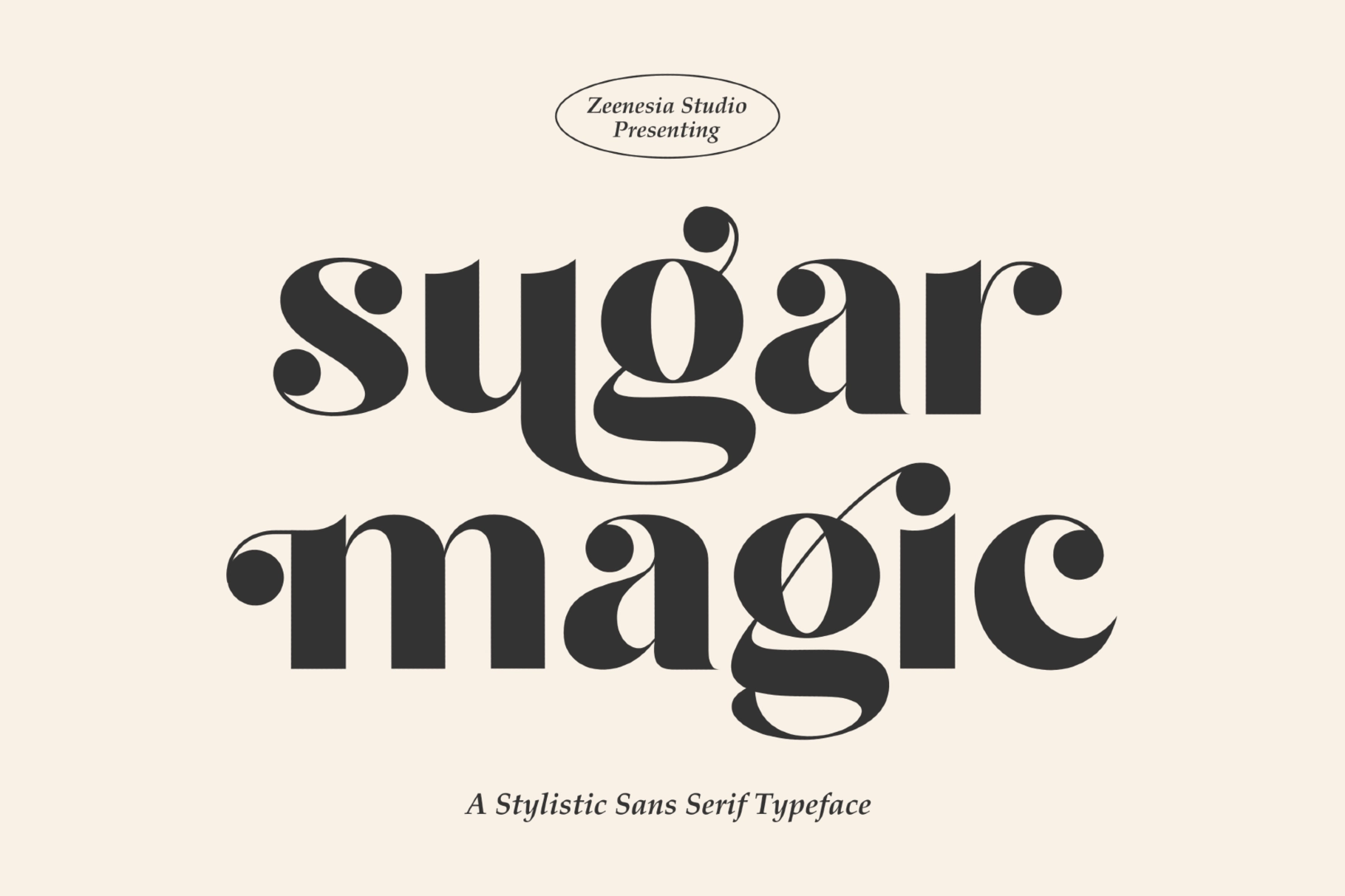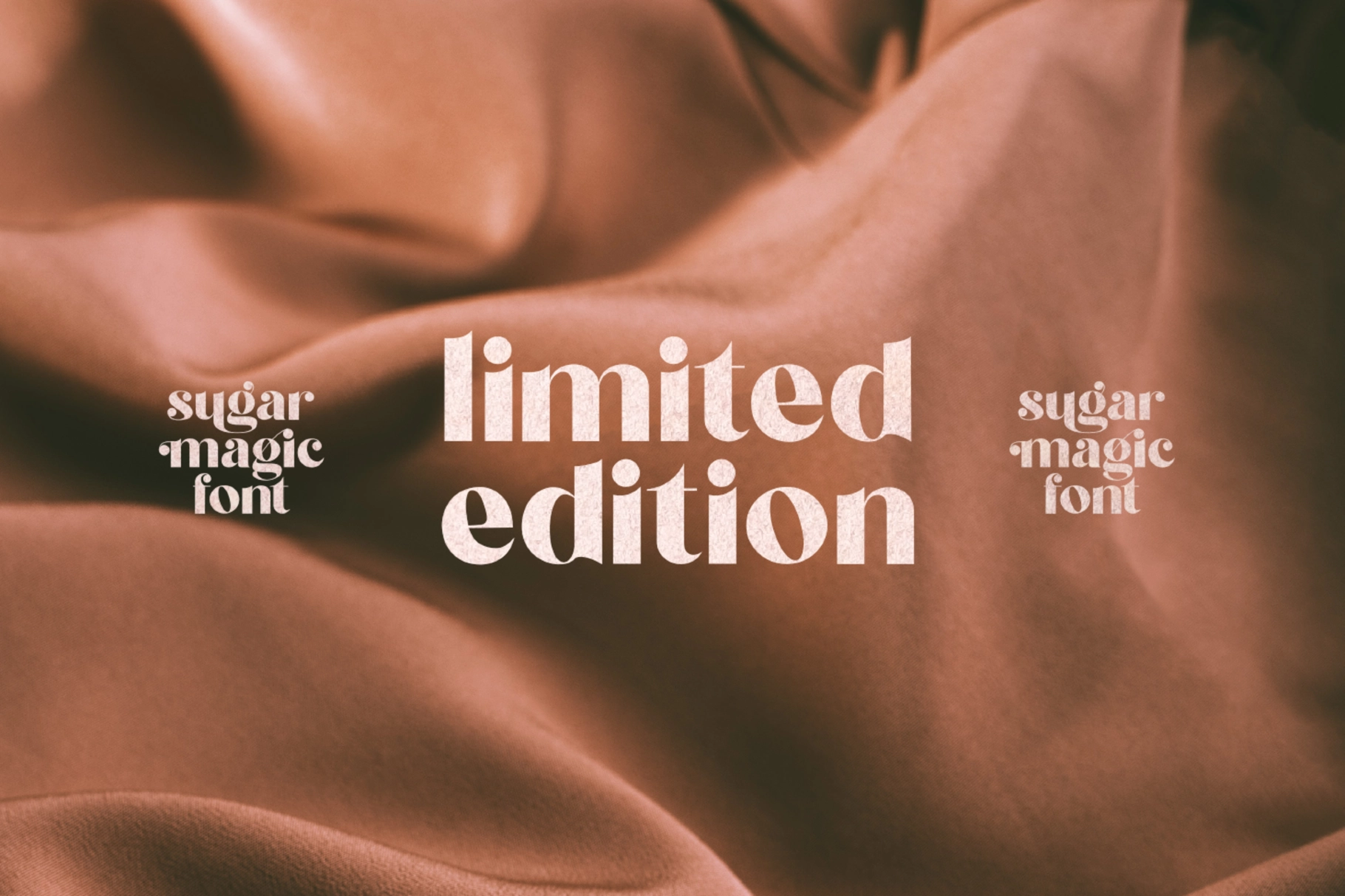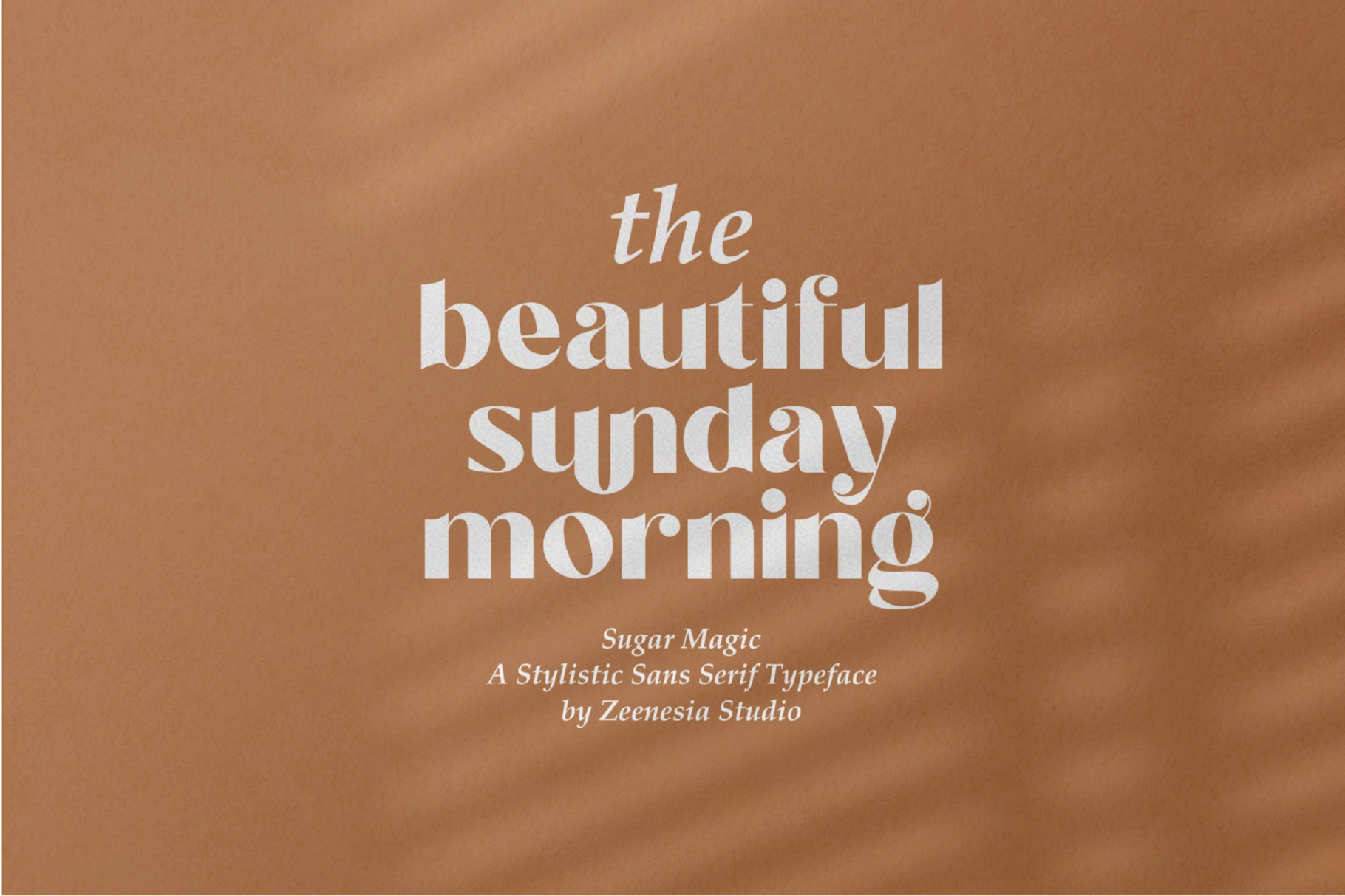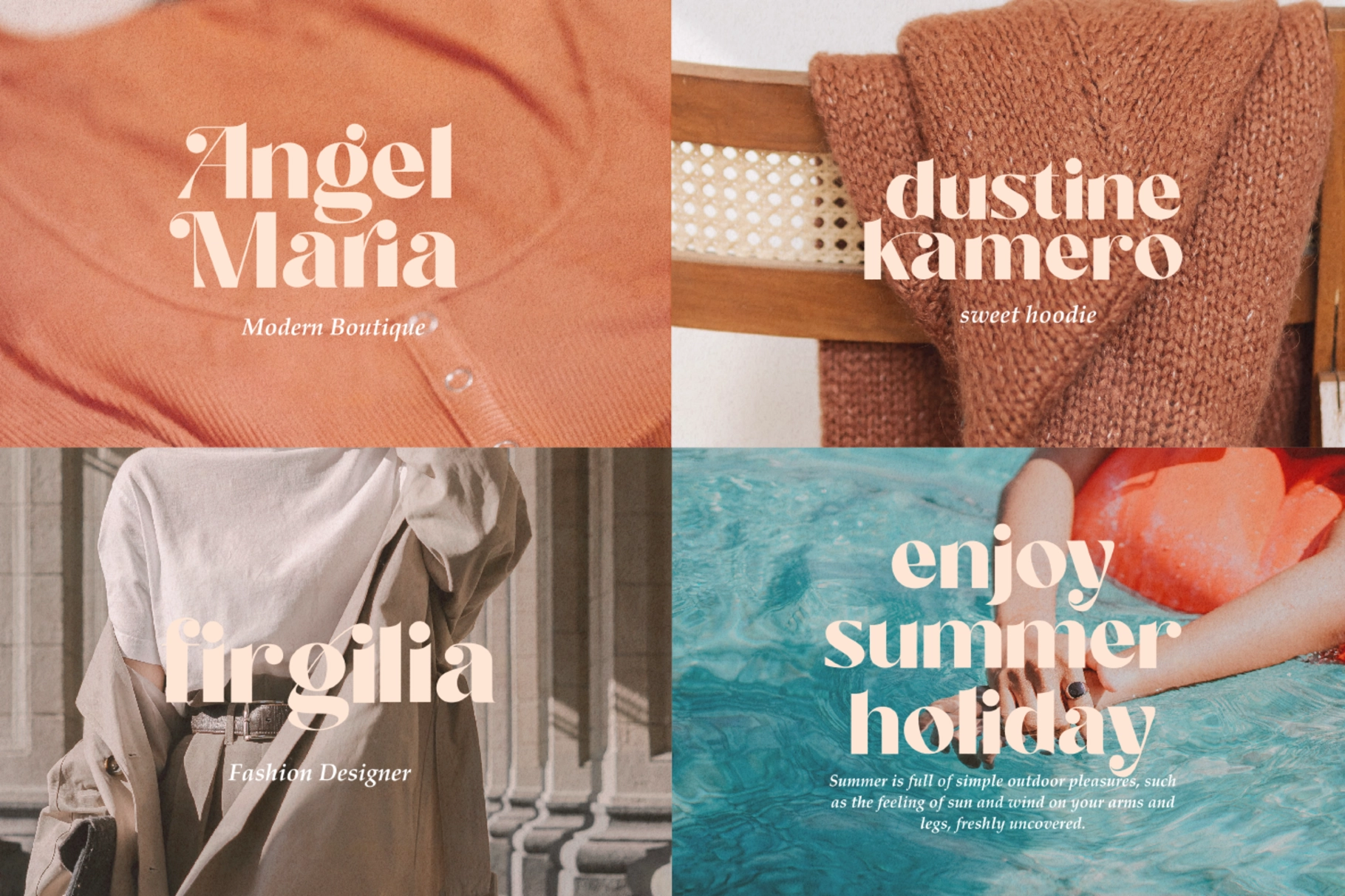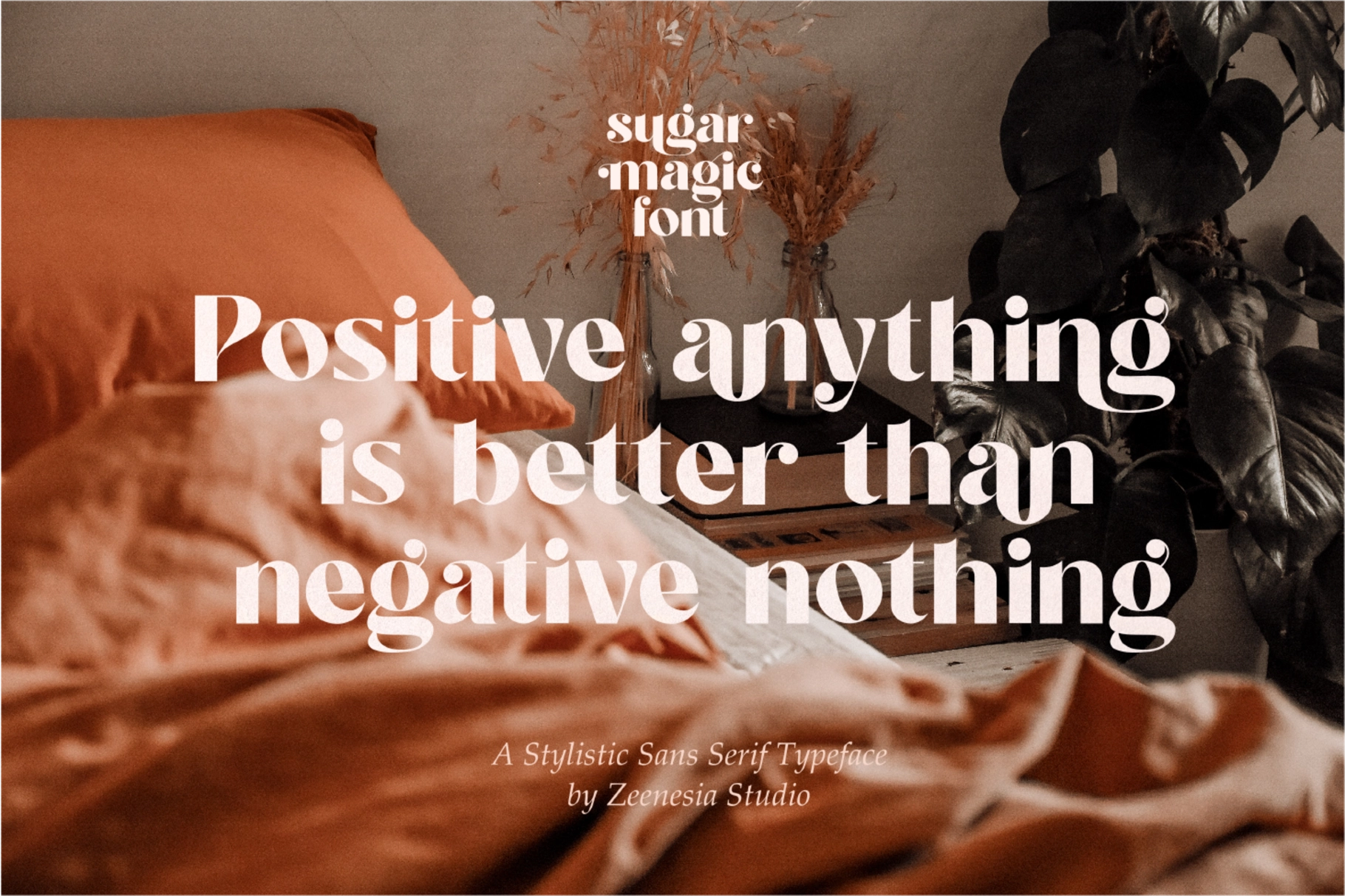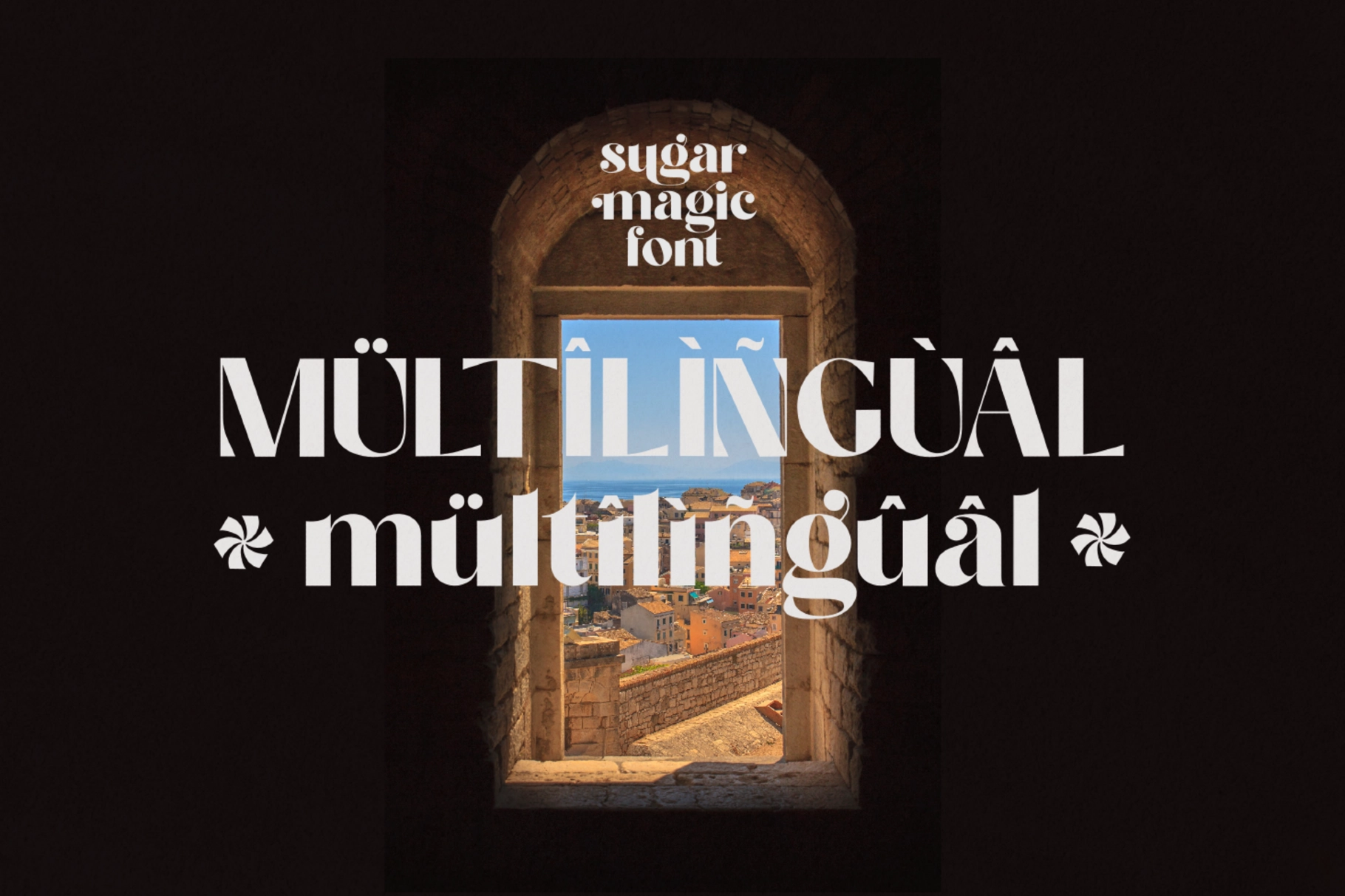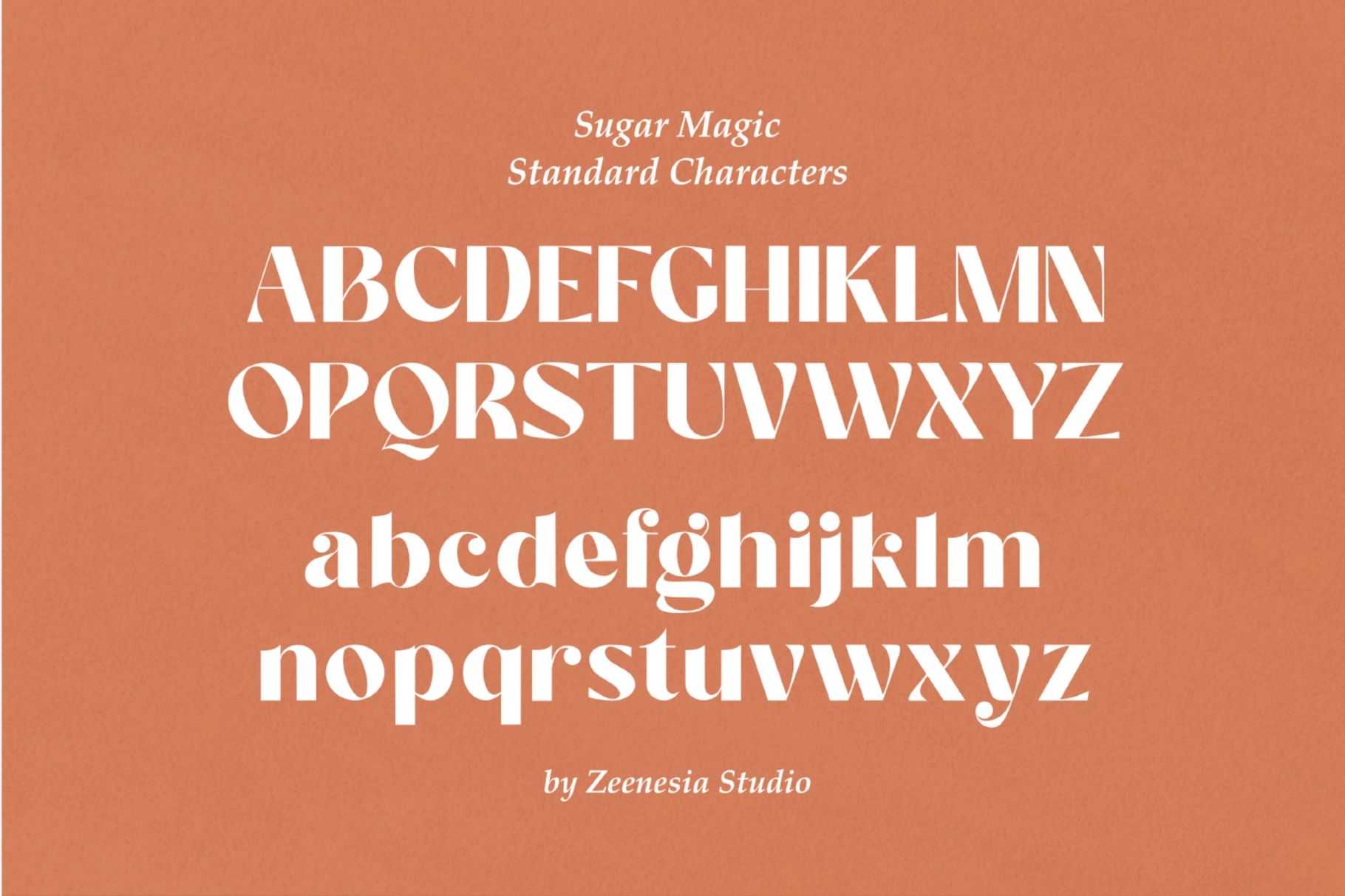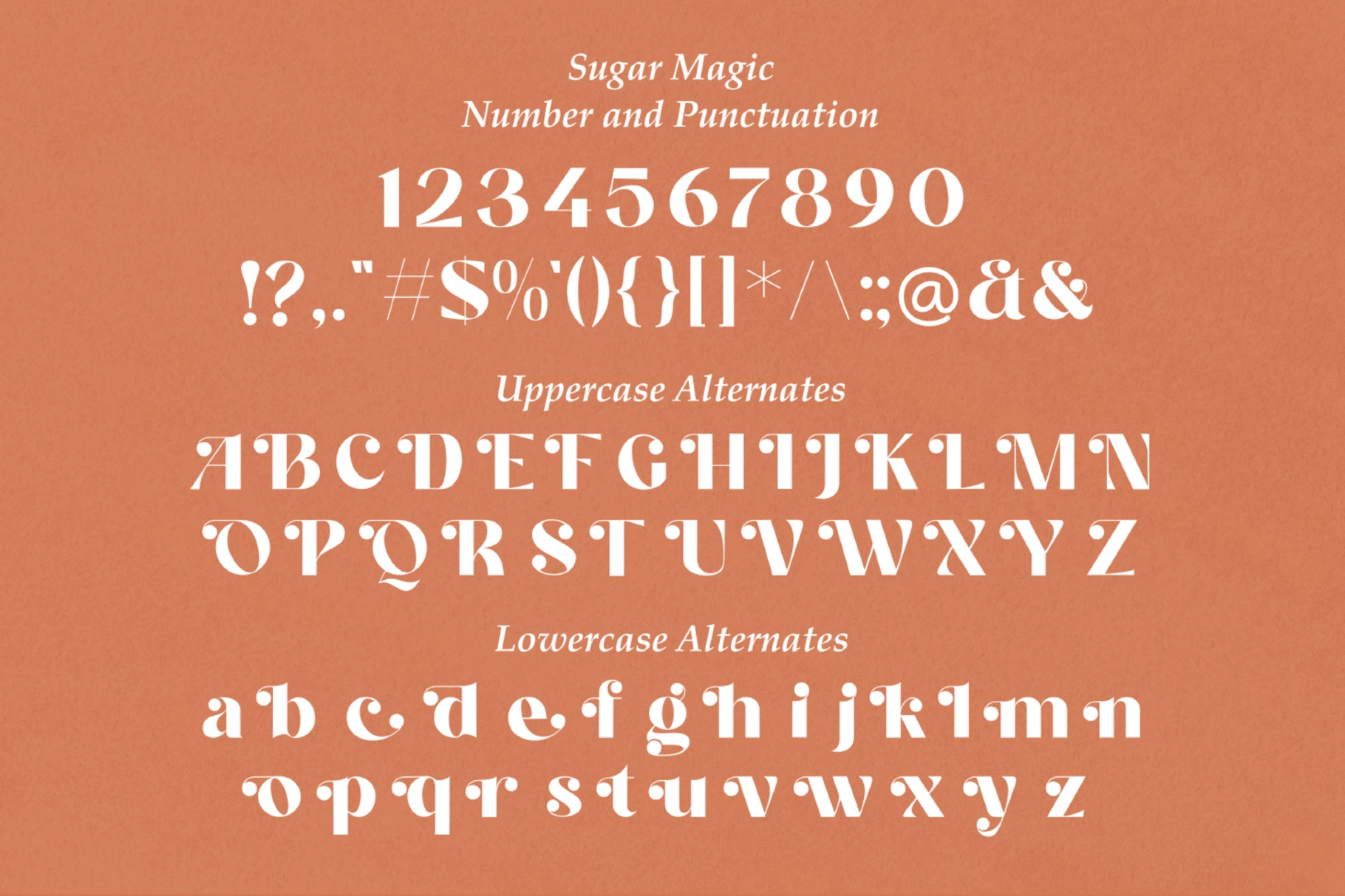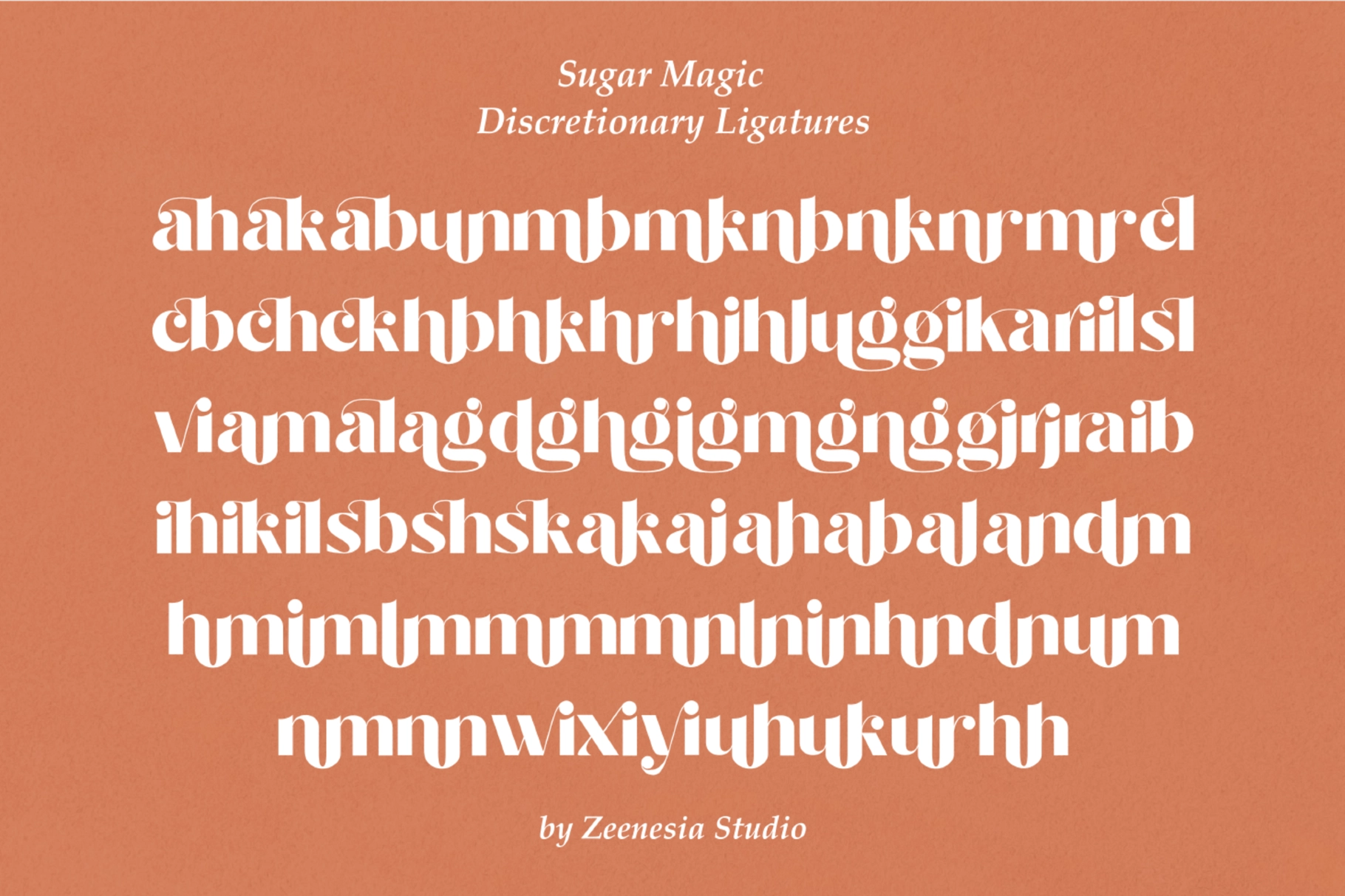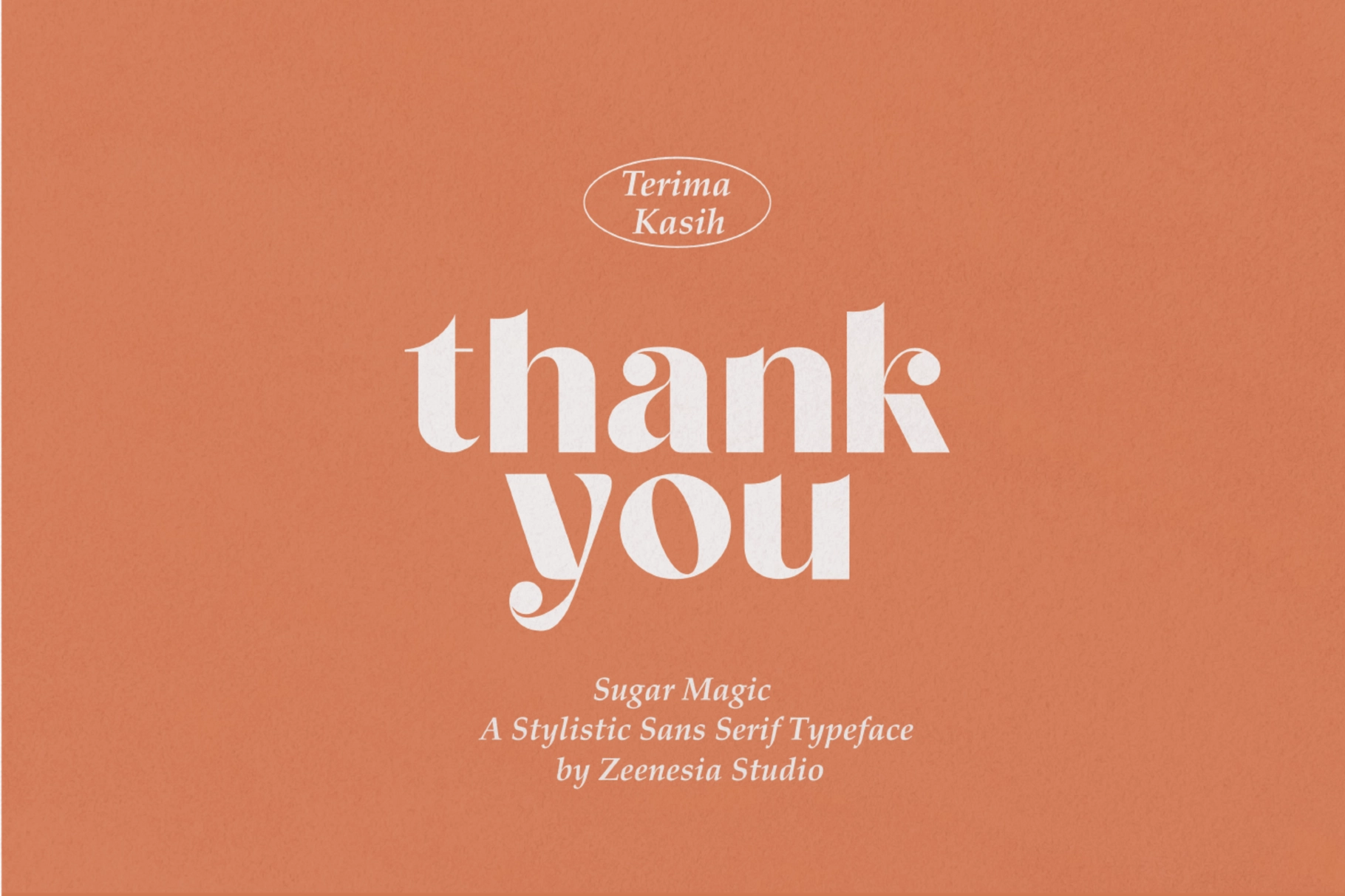
Sugar Magic - Fashion Editorial Font
This elegant typeface is soft, polished, and expressive, with high-contrast strokes, rounded terminals, and decorative alternates that give each word a boutique-quality finish. The letterforms carry a fashion-led character without losing clarity, making it easy to use for refined headlines and identity work.
Sugar Magic is a strong fit for fashion branding, beauty packaging, boutique logos, editorial titles, magazine covers, lookbooks, perfume labels, wedding stationery, social media quotes, apparel tags, website headers, advertising layouts, and more. Its ligatures and alternate glyphs add personality fast — useful when plain typography has decided to wear beige again.
- Standard glyphs
- Uppercase & lowercase alternates
- Discretionary ligatures